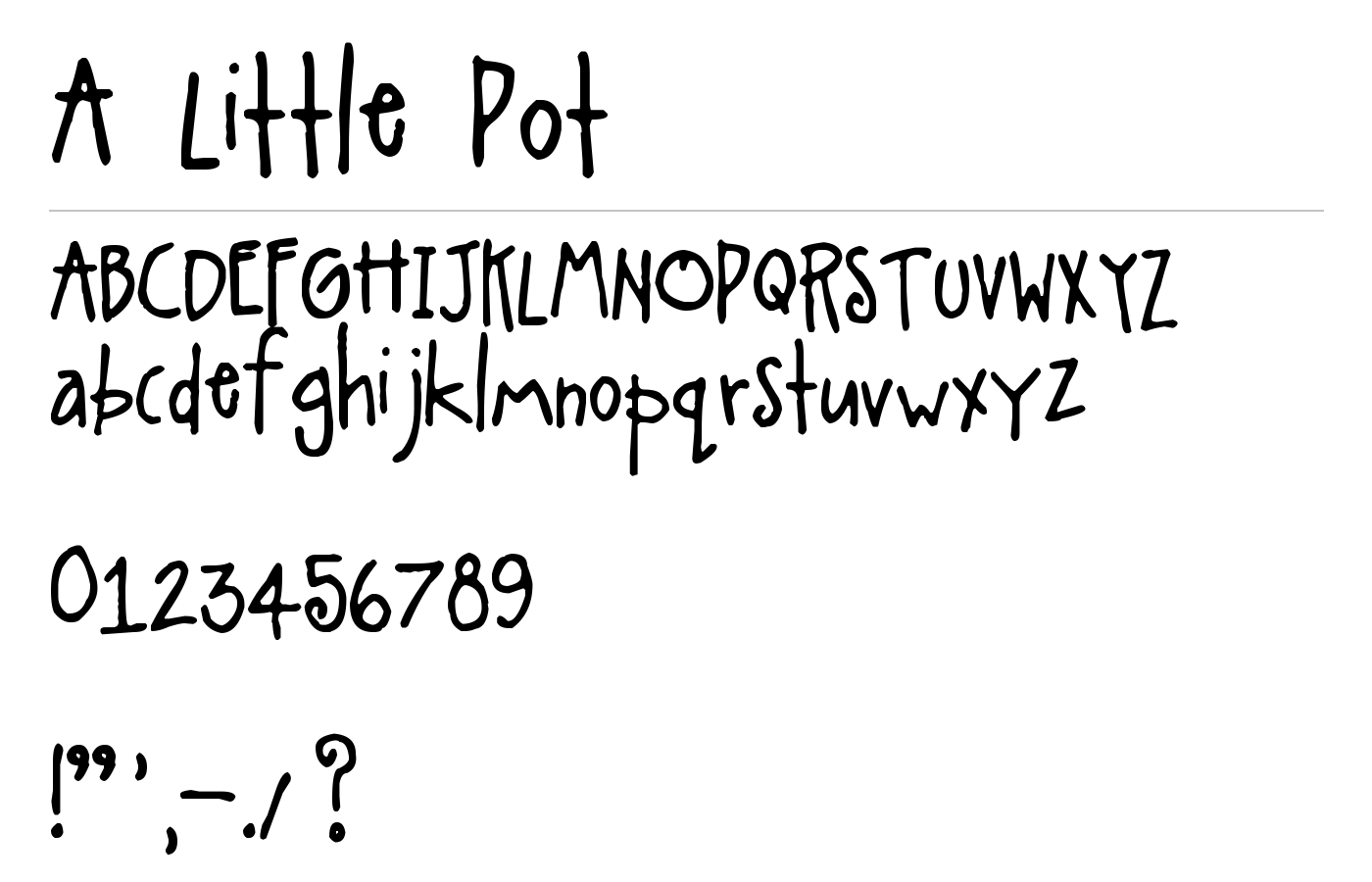
A Little Pot is a playful, hand-drawn sans serif font with an informal, whimsical style. Its irregular letter shapes and uneven strokes give it a casual, approachable feel, making it perfect for creative projects, children's content, or any design seeking a friendly and personal touch. This font works well in headlines, logos, and packaging where a lighthearted and unique personality is desired.
A Little Pot Font